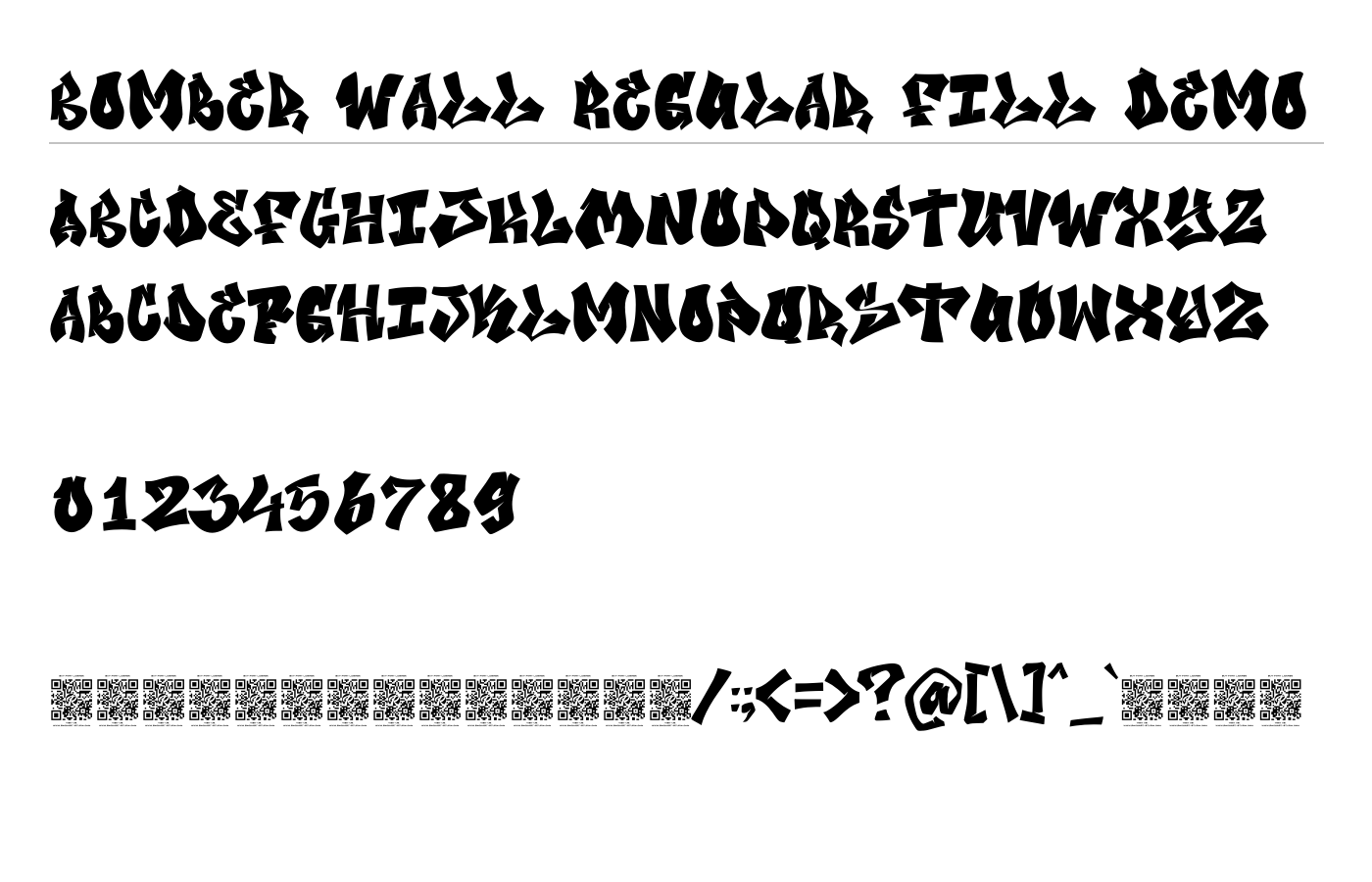
Bomber Wall Regular is a bold, graffiti-inspired display font with a dynamic, edgy style perfect for urban and street culture designs. Its blocky, irregular shapes and strong contrast give it a rebellious, energetic feel, making it ideal for eye-catching logos, posters, and branding that demand attention. This font works best in creative, youthful contexts where a bold statement is needed rather than in body text.
Bomber Wall Regular Font
About Bomber Wall Regular Font